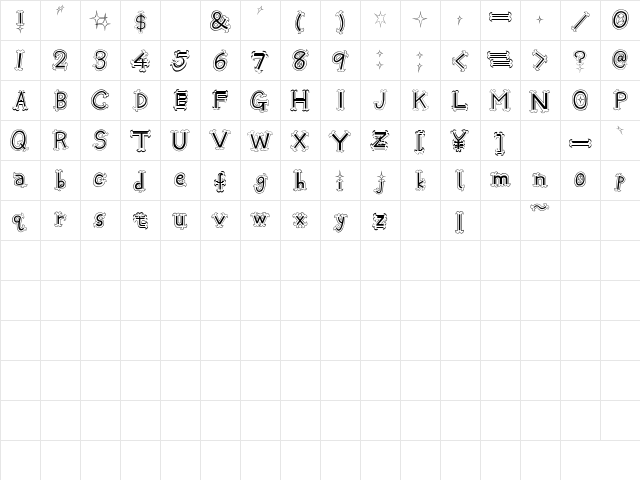
Oshare Regular Free Font
Oshare Regular
Oshare Family
Oshare Regular
Design Context for Oshare
Oshare is a composed and adaptable typeface that performs quietly and consistently across a wide range of design contexts.